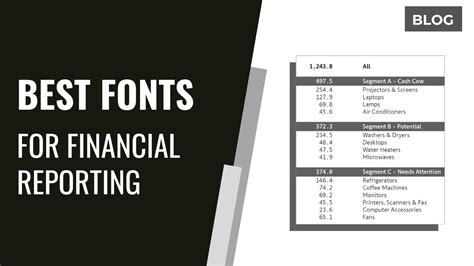
Best Font For Reports. Web best fonts for professional documentation & reports. Barnaby is a text serif that works beautifully as body text.
Print vs screen the generally accepted wisdom is. Barnaby is a text serif that works beautifully as body text. They’re usually used online, but are becoming increasingly acceptable in printed materials. Web explore 23 types of business fonts, including common ways to pair and use them, and learn how to choose the right font for your next project or presentation. Designed to be used at a smaller scale, this particular font works well. The 11 best fonts for exceptional reporting. Web best fonts for essays and reports. Web arial, helvetica and verdana are the most common. Web best fonts for professional documentation & reports. Times new roman is a timeless classic commonly used in professional and academic settings.
They’re usually used online, but are becoming increasingly acceptable in printed materials. Barnaby is a text serif that works beautifully as body text. Web a classy collection: Web arial, helvetica and verdana are the most common. Designed to be used at a smaller scale, this particular font works well. They’re usually used online, but are becoming increasingly acceptable in printed materials. Web best fonts for essays and reports. It is based on an old serif font. Times new roman is a timeless classic commonly used in professional and academic settings. Web explore 23 types of business fonts, including common ways to pair and use them, and learn how to choose the right font for your next project or presentation. Times new roman is a serif typeface perfect for professional documents and reports.